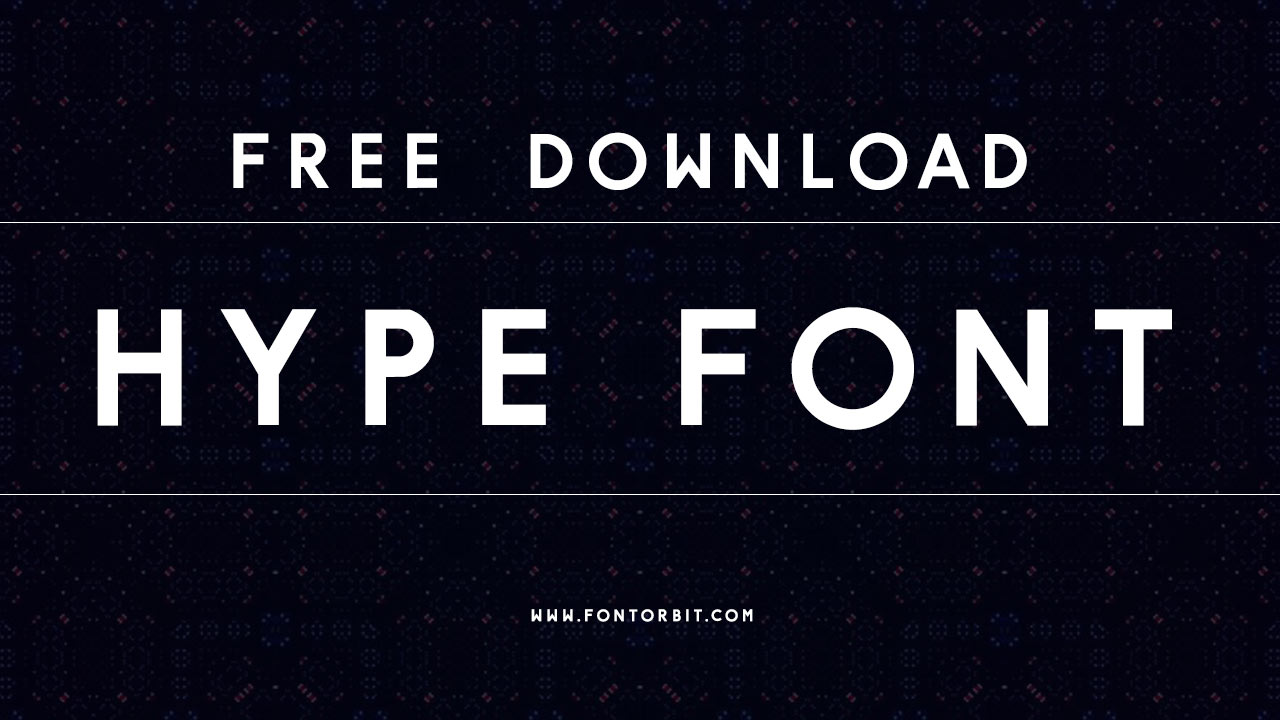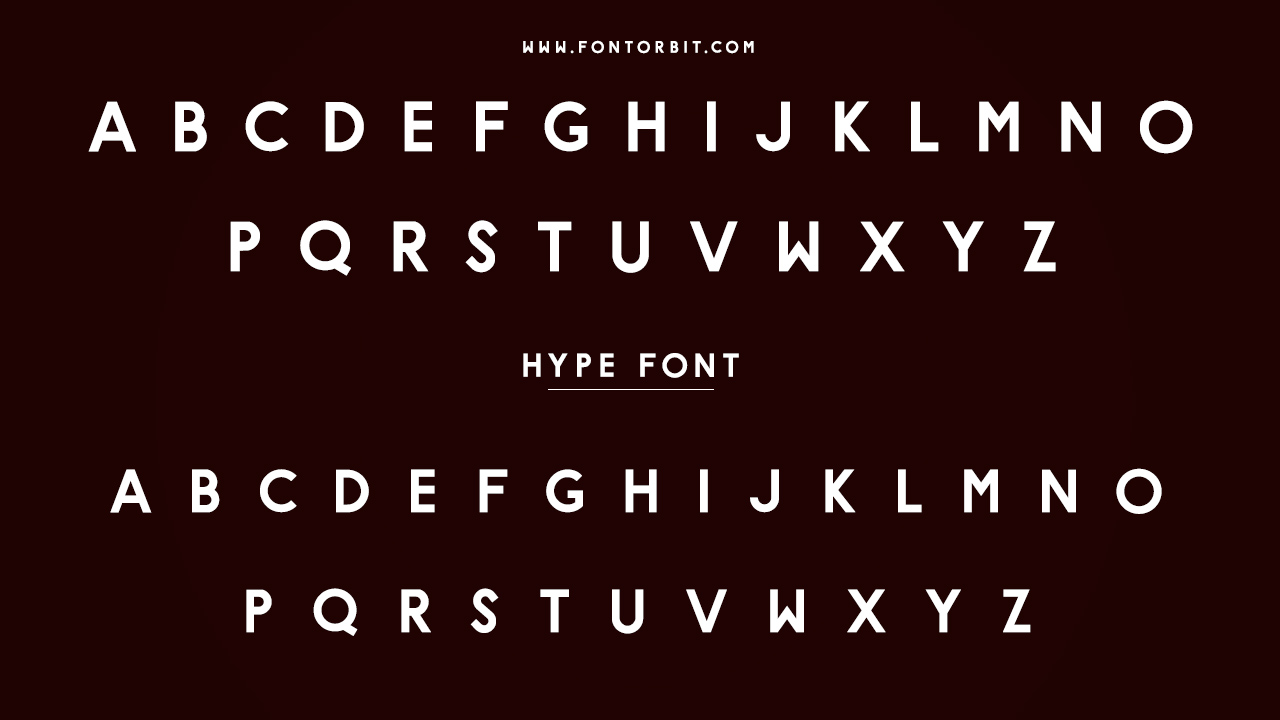
HYPE is a modern sans-serif font designed by Nils Merkel. Released as a free font for personal use, it combines sleek lines with a contemporary aesthetic, making it perfect for various design applications. The font is categorized under the sans serif family and features a clean and minimalistic style, ideal for both digital and print media.
HYPE Family Includes
The HYPE font family offers a versatile option for designers looking to achieve a modern look. The main styles available is:
HYPE Regular
Notable Uses Of HYPE
HYPE is often used in creative projects such as:
- Branding and logos
- Website headers and footers
- Posters and promotional materials
- Social media graphics
- Merchandise designs
HYPE is suitable for a variety of design contexts, including:
- Corporate branding
- Event Invitations
- Fashion and lifestyle products
- Art and music promotions
- Digital marketing materials
HYPE by Nils Merkel is an excellent choice for anyone looking to enhance their design projects with a modern and stylish font. Its clean lines and versatility make it an ideal option for both personal and professional use. With various applications across different media, HYPE is sure to add a contemporary flair to any design.
HYPE is versatile and works well in branding, marketing, and creative projects.